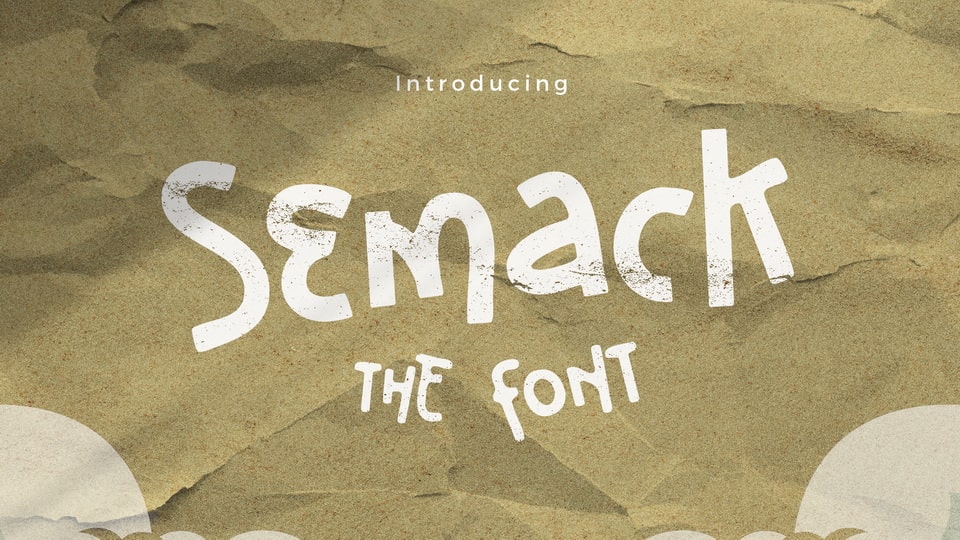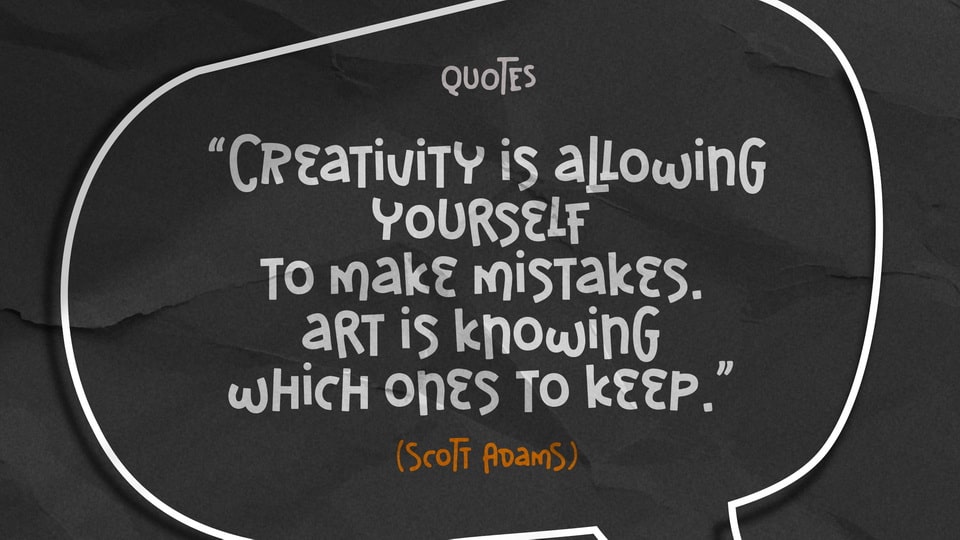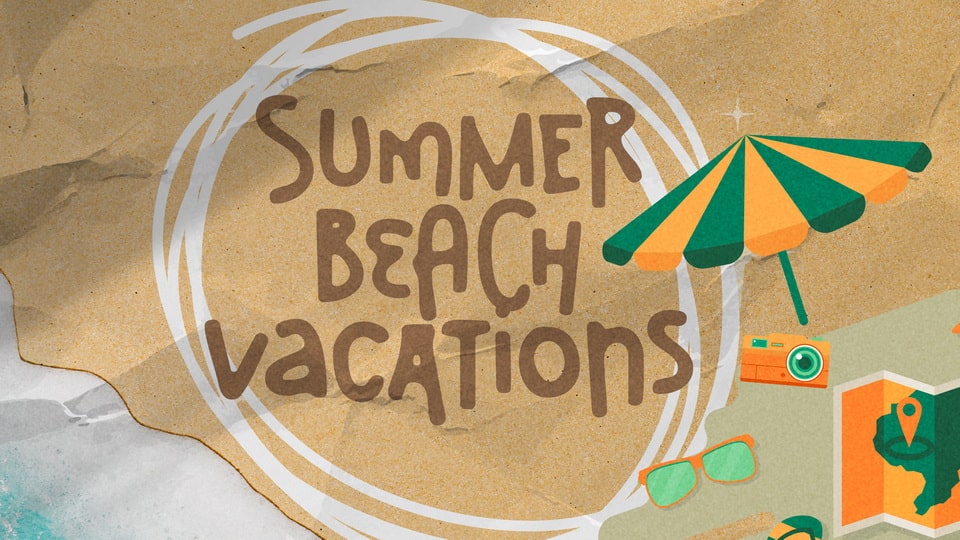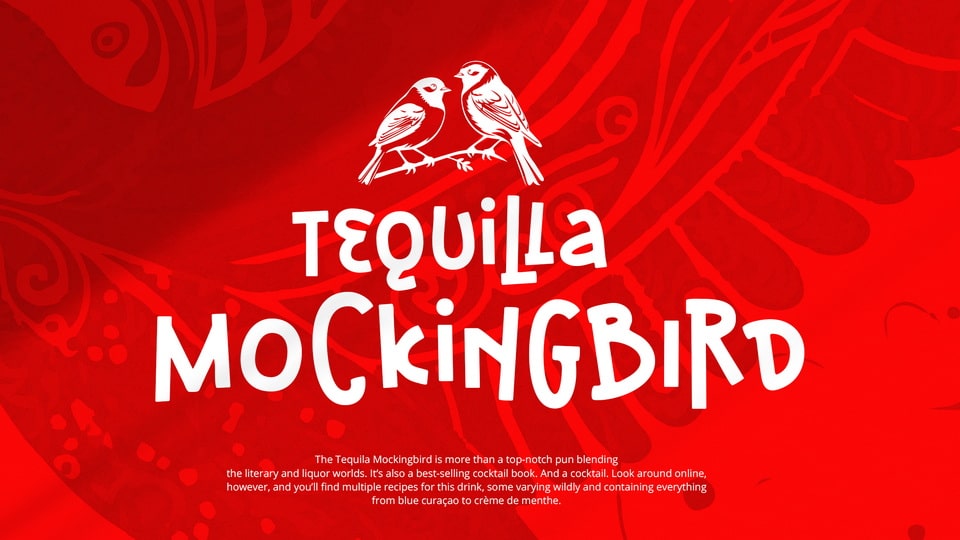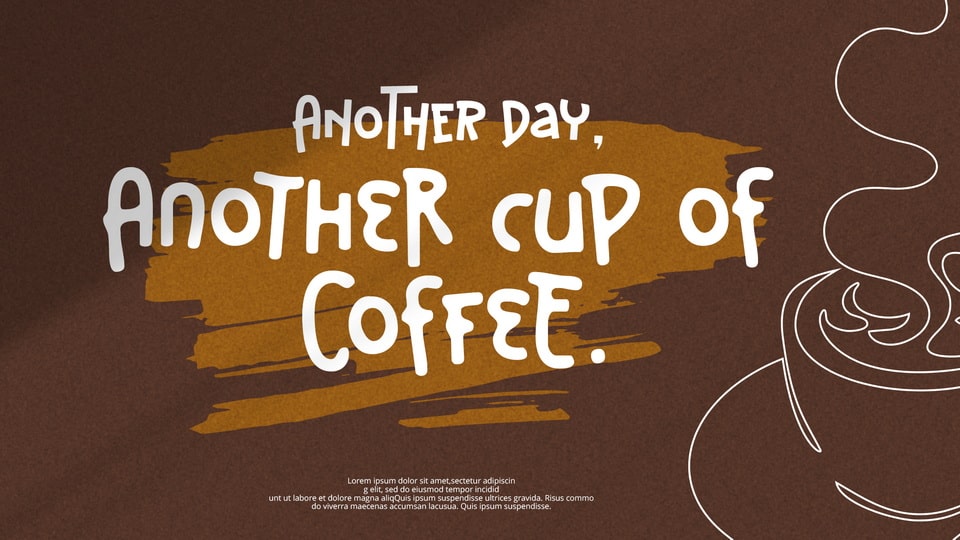
Semack Font
Semack is a distinctive and captivating handwriting font that adds a touch of personality and flair to any project. Crafted with meticulous attention to detail, Semack offers both a regular and blur type variant, providing versatility and creative possibilities.
Semack’s organic shapes and irregular letterforms lend a sense of spontaneity and creativity to your projects, inviting viewers to engage with your content on a more personal level. Its playful demeanor and dynamic energy make it a perfect choice for projects that seek to stand out and make a lasting impression.